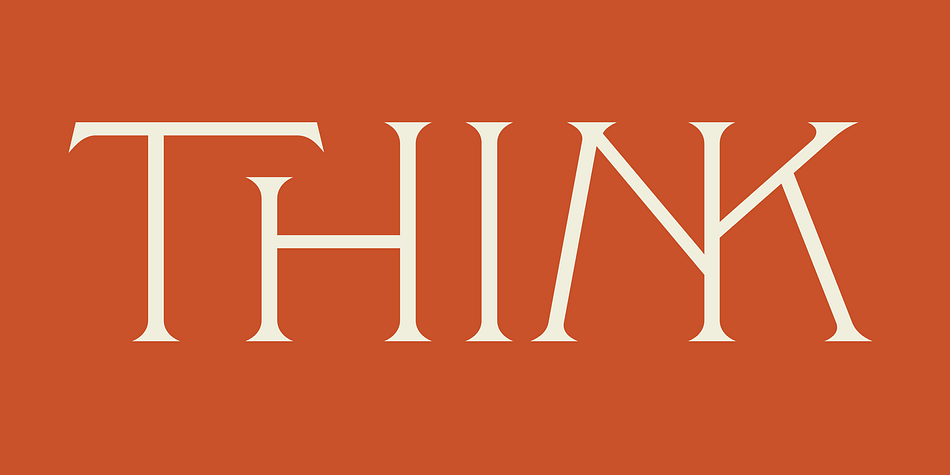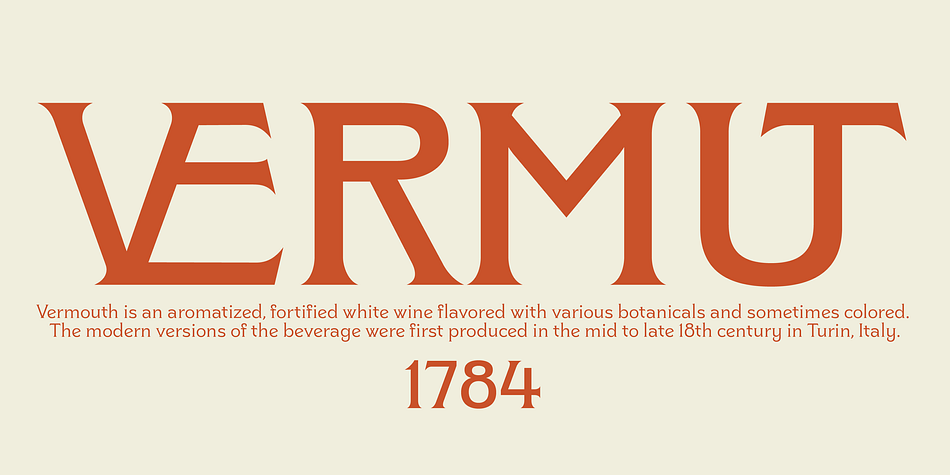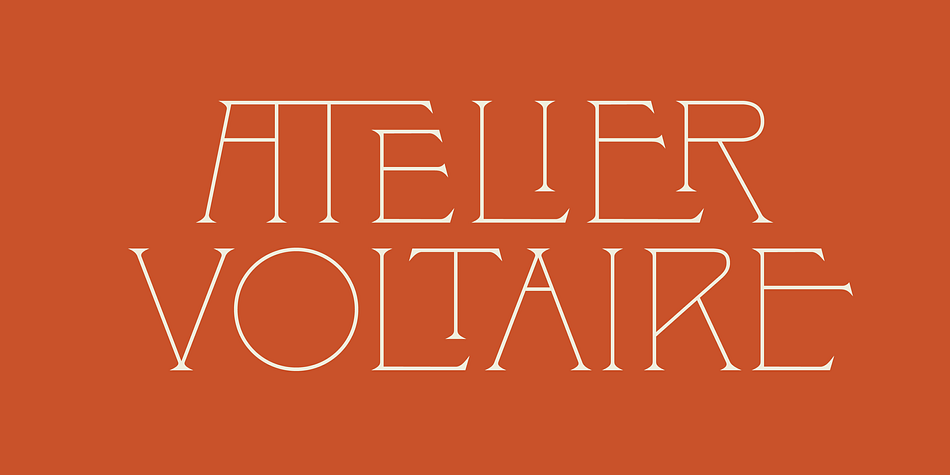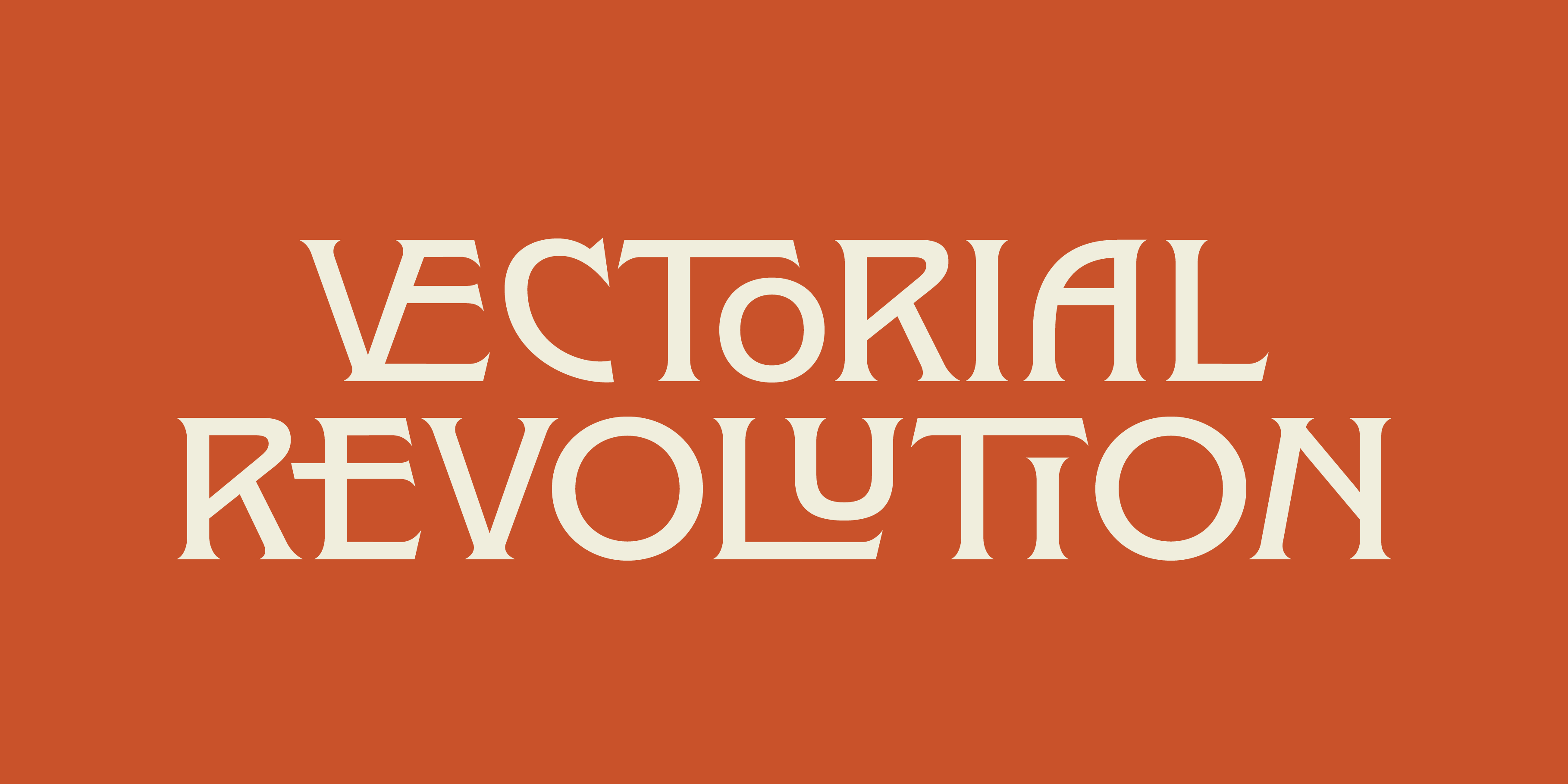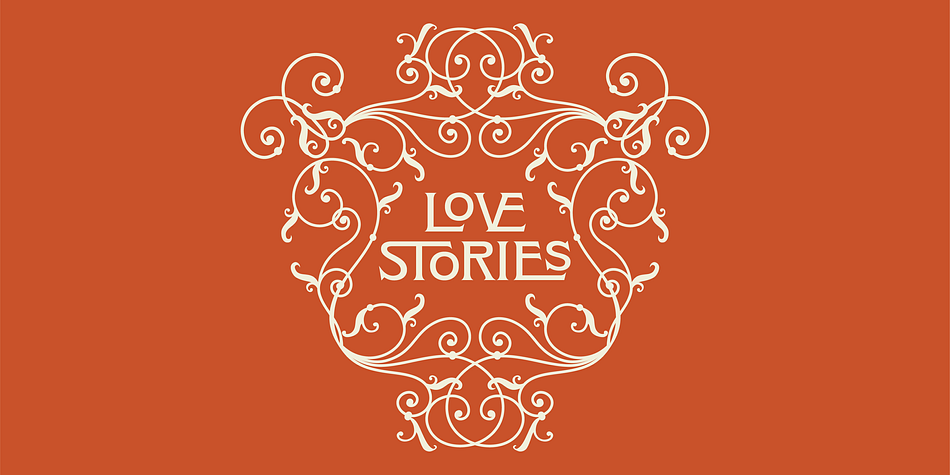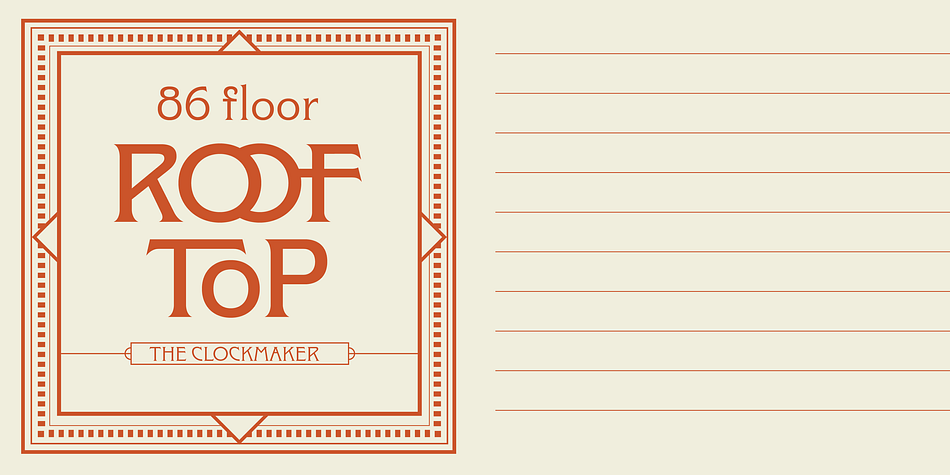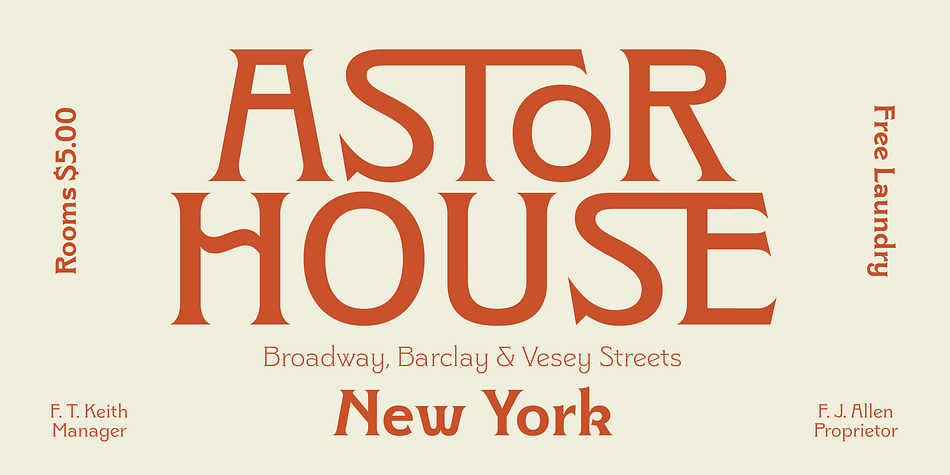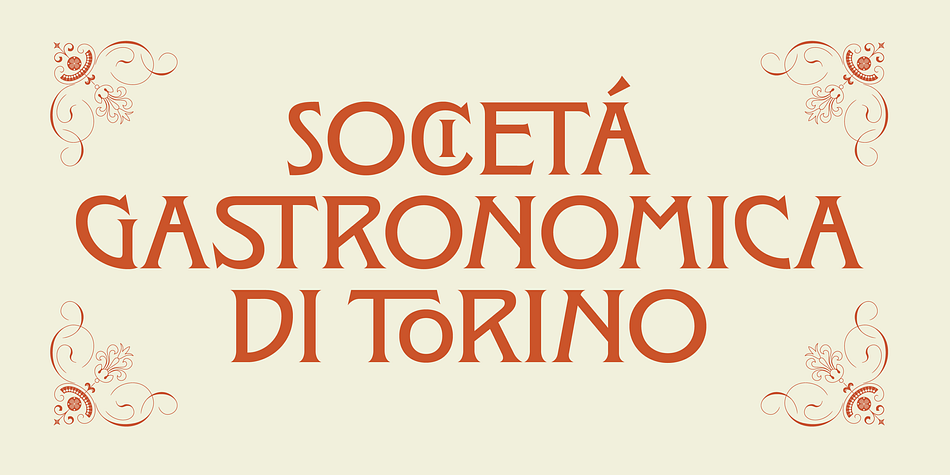
Clockmaker
Designed by Alejandro Paul, Clockmaker is an art nouveau and display serif font family. This typeface has eight styles and was published by Sudtipos.
Sudtipos is proud to announce the release of Clockmaker, an 8-weight family that takes initial inspiration from typography around the turn of the twentieth century. Clockmaker takes aesthetic references from Victorian, Art Nouveau and Art Deco advertising and typography, taking special influence from John F. Cummings’ all-caps – and never digitized – type design Elandkay.
Clockmaker is a robust multi-weight family that includes an array of ligatures as well as alternate characters and support for all latin languages. The design process began with developing and modernizing the uppercase letterforms, followed by designing the lowercase and additional weights. Creating a diverse and playful set of uppercase ligatures was an almost endlessly enjoyable task; they are one of Clockmaker’s most charming features. Clockmaker is an impeccable choice for designs requiring a vintage flair such as a luxury liquor labels, restaurant identities, lavish hotels and many other applications where elegance and grace are needed.
In addition to its historical references, Clockmaker is an homage to my grandfather who was a master craftsman, repairing antique clocks and fine watches with great skill and mathematical precision. Watching him work was fascinating and it has been a joy to remember those quiet and curious moments from my childhood while designing this font.